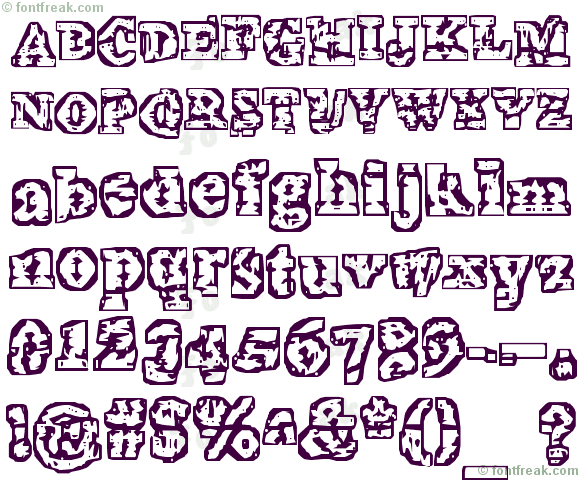
The Interzone
About The Interzone
The Interzone font by Mr. Fisk is a striking display typeface that captivates with its unique character. This freeware font features a decorative style that exudes an eclectic and slightly edgy vibe, making it ideal for creative projects that demand attention. The bold stroke weight and high contrast give it a robust presence, while the irregular spacing adds an element of unpredictability that enhances its visual appeal. The font showcases playful decorative elements, including quirky serifs and unconventional letterforms that contribute to its overall charm.
The Interzone font is versatile and can be effectively used in various contexts. It is particularly well-suited for eye-catching movie posters, where its unique aesthetic can draw viewers in. Additionally, it works beautifully for music album covers, capturing the essence of artistic expression. Restaurant menus can also benefit from this font, especially in establishments looking to convey a modern yet playful atmosphere. Graphic designers will find it useful in branding projects that require a distinctive identity, while content creators can utilize it in social media graphics to stand out in crowded feeds.
Target audiences for The Interzone font include graphic designers, small business owners, and content creators who seek to make a memorable impression. Its unconventional style allows for a wide range of creative applications, appealing to those who wish to push the boundaries of traditional typography.
In conclusion, The Interzone font stands out due to its striking design and versatility. Its ability to convey personality and creativity makes it an excellent choice for anyone looking to add a distinctive touch to their projects. With The Interzone font free download, you can elevate your designs and capture the attention of your audience.